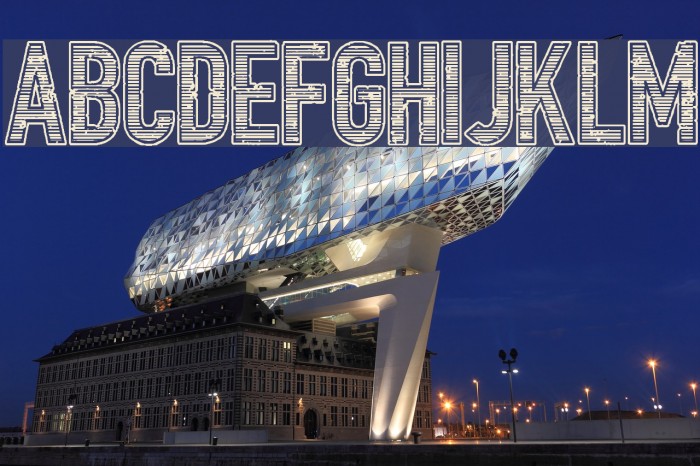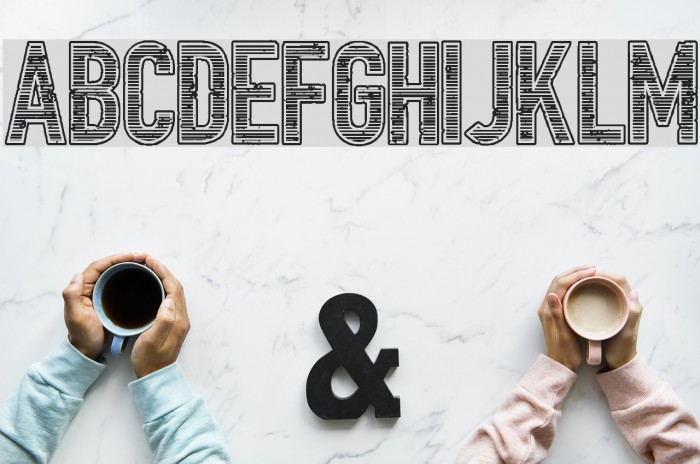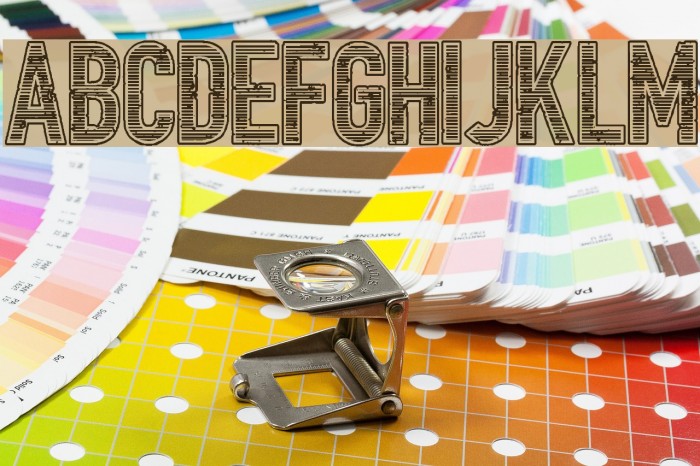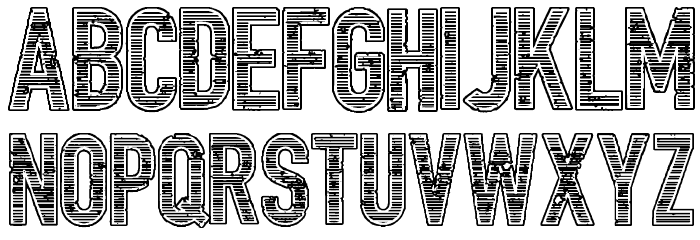
Trailer Park Lane Bold Font
Trailer Park Lane Bold Description
This font features a bold, decorative style with a unique lined texture within each character, giving it a distinct, eye-catching appearance. The uppercase letters are designed with a consistent width and height, maintaining a uniform look across the alphabet. The characters are outlined with a solid border, enhancing their visibility and impact. The font's style is reminiscent of vintage signage, making it suitable for projects that require a retro or nostalgic feel. The intricate detailing within each letter adds depth and character, making it ideal for creative and artistic designs.
A bold, decorative font with a lined texture and vintage appeal from Uncategorized fonts.
- Proposed Projects: Ideal for retro-themed posters, vintage branding, creative logos, and artistic displays.
- Overall Style: Vintage